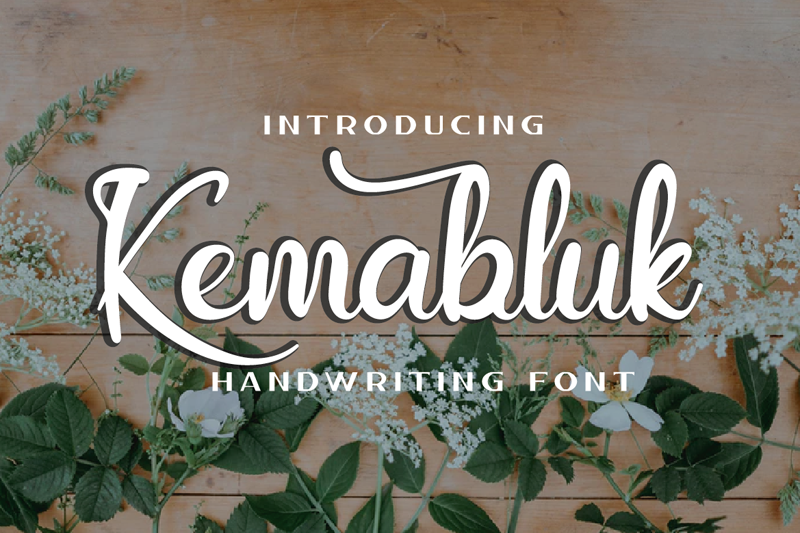
Preview and download Kemabluk Font. Created by Murozakul Akhsan in Script Various styles with Free for personal use license.
Kemabluk is a smooth and beautiful handwritten font. small and cute, This font would be ideal for writing wedding invitations, cards, logos, quotes or other designs that may require romantic and personal touch! THIS FONT IS DEMO ONLY Free for personal used any donation are very appreciated. PayPal account for donation : https://paypal.me/murozakul ENGLISH: Be very careful and take the time to read any and all documentation before deciding to use a font commercially. Ignorance is not an excuse for breaking the law. By installing or using this font, you are hereby agree to this Product Usage Agreement: 1. This font is ONLY FOR PERSONAL USE 2. NO COMMERCIAL USE ALLOWED 3. You are REQUIRES A LICENSE for PROMOTIONAL or COMMERCIAL USE 4. CONTACT ME before any Promotional or Commercial Use For special offer commercial EMAIL me: amurozakul@gmail.com whatshap : 085641919322 Follow me on: isi link affiliate mu: https://www.creativefabrica.com/ref/1232658/ INDONESIA: Berhati-hatilah dan luangkan waktu untuk membaca Syarat & Ketentuan dibawah, sebelum memutuskan untuk menggunakan font secara komersial. Ketidaktahuan bukanlah alasan untuk suatu pelanggaran hukum. More... |